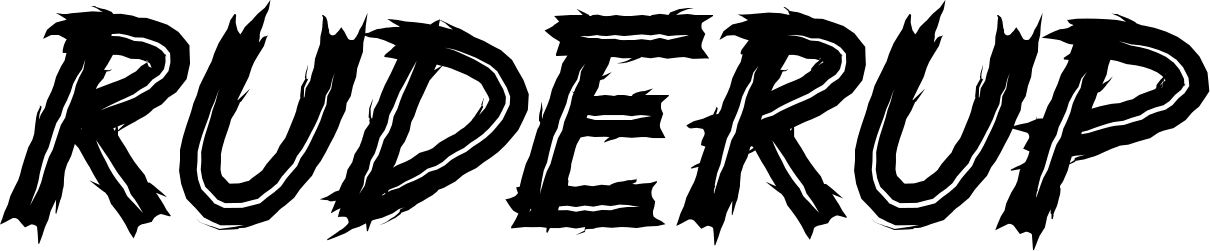
Ruderup Font
Are you ready to change your writing style? Stay with us to offer what you need. Today Ruderup brush font comes with a touch of friendliness that can give an organic and natural feeling to your target audiences. This casual tribal font looks like it was created with a brush.
This font is well-matched for any informal branding materials. You can use it for flyers, posters, branding, apparel, or any writing you want to have an artistic atmosphere. Act now!